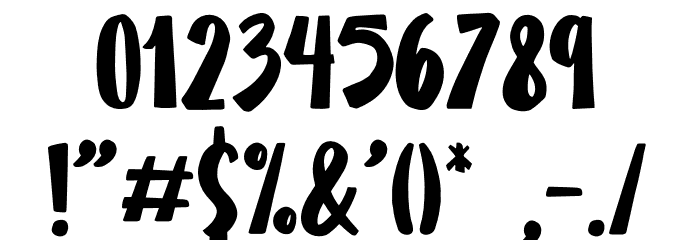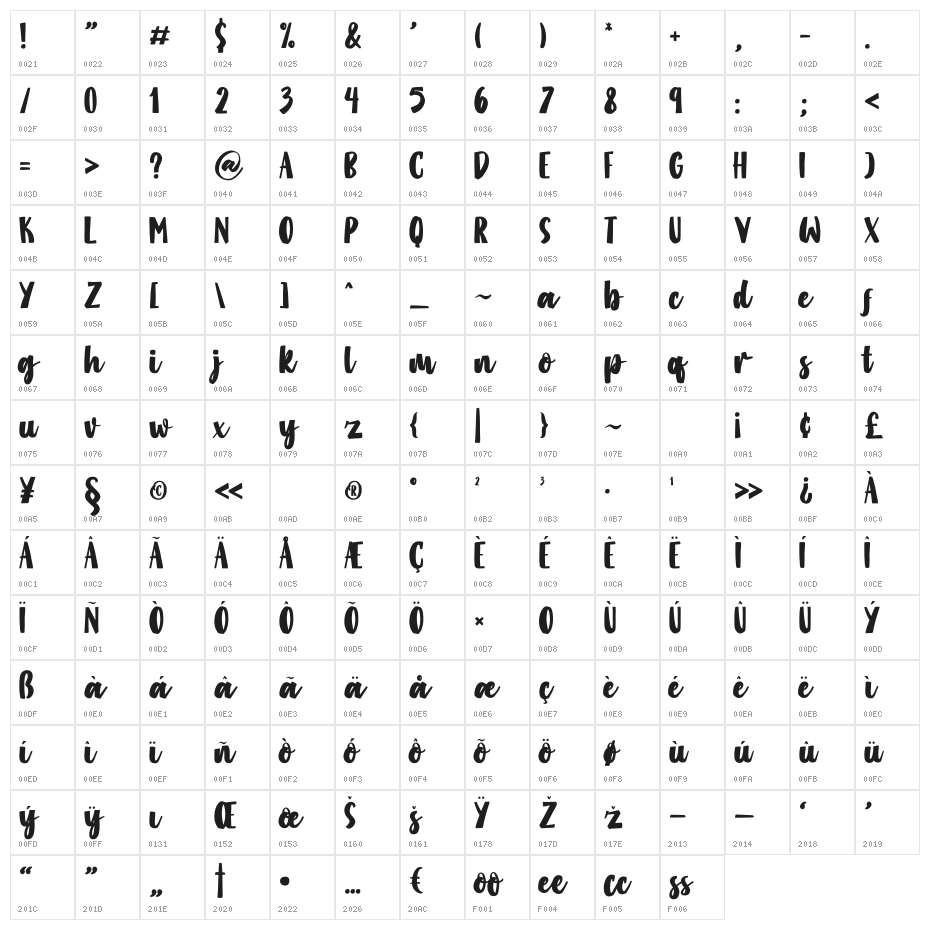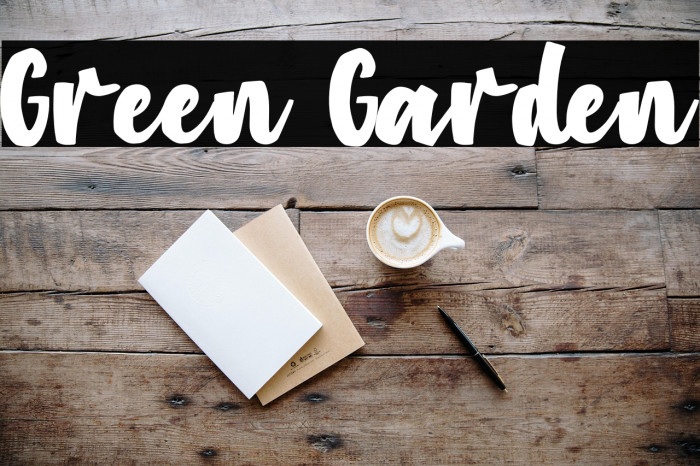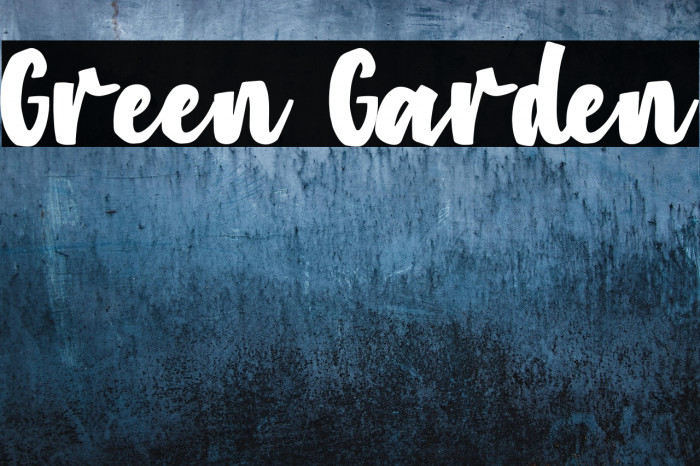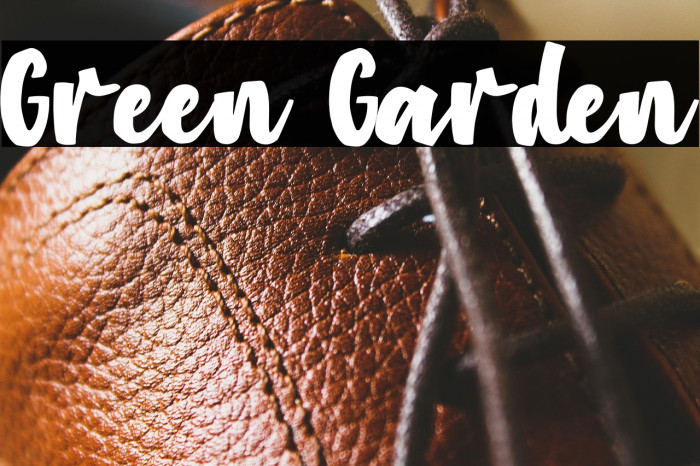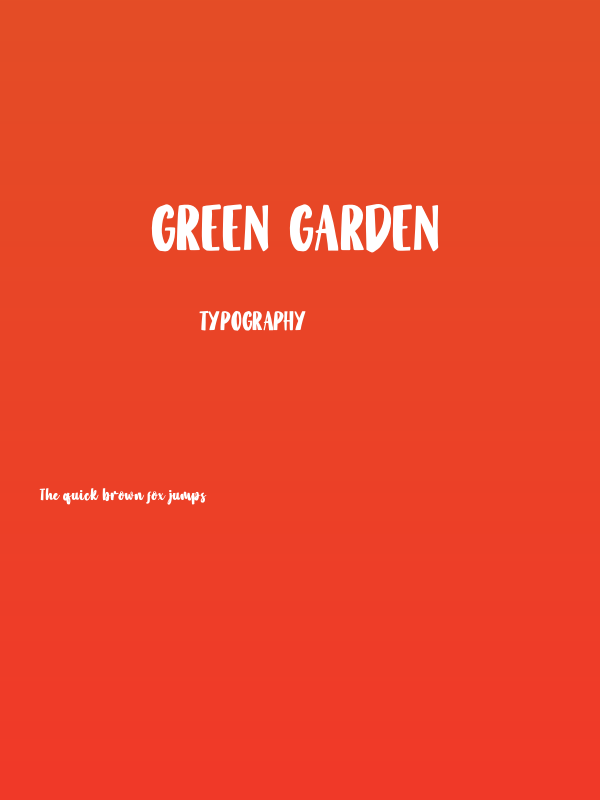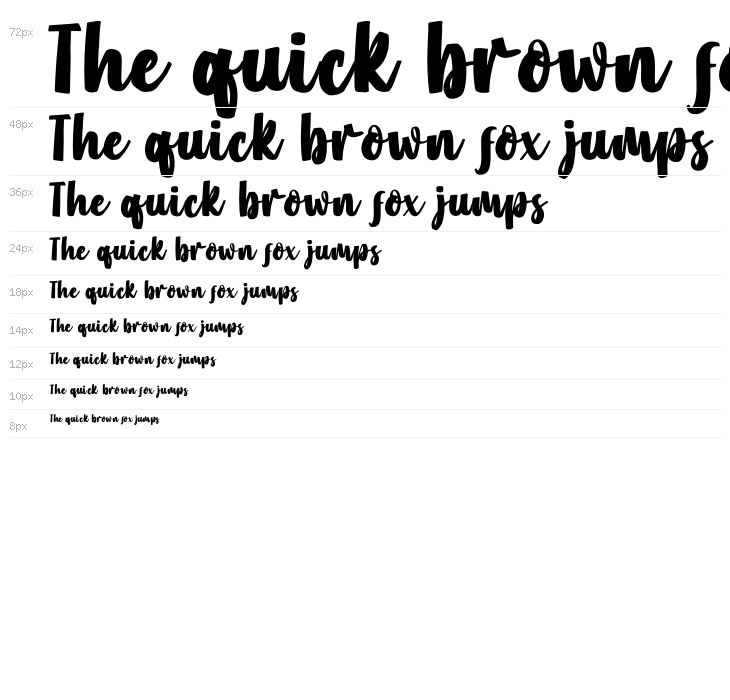
Green Garden Font
This font features a bold, handwritten style with a playful and artistic flair. The uppercase letters are robust and slightly irregular, giving a dynamic and energetic feel. The lowercase letters maintain the same lively character, with some letters featuring unique loops and curves that enhance its whimsical nature. The numerals are consistent with the bold style, ensuring readability while maintaining the font's overall aesthetic. Special characters are creatively designed, complementing the font's energetic and informal style. This font is perfect for projects that require a personal touch or a creative, informal vibe.
A bold, playful handwritten font with an energetic and artistic style.
- Proposed Projects: Ideal for greeting cards, posters, logos, and creative branding projects.